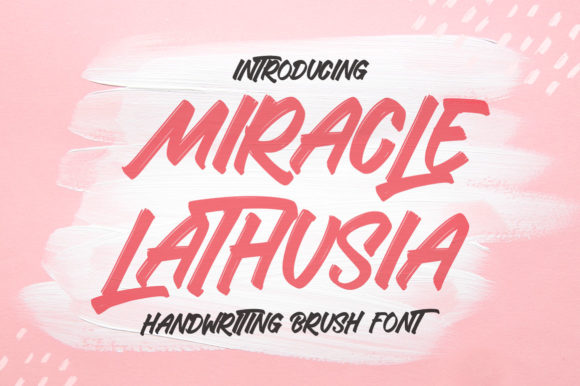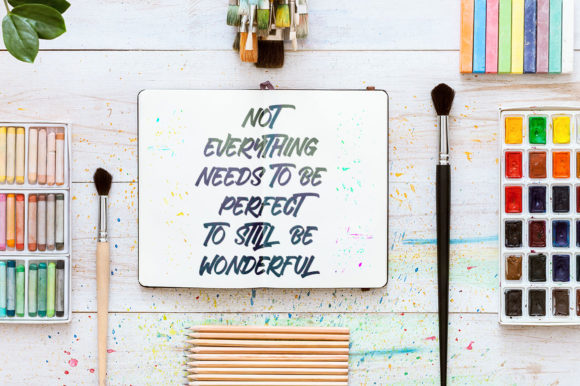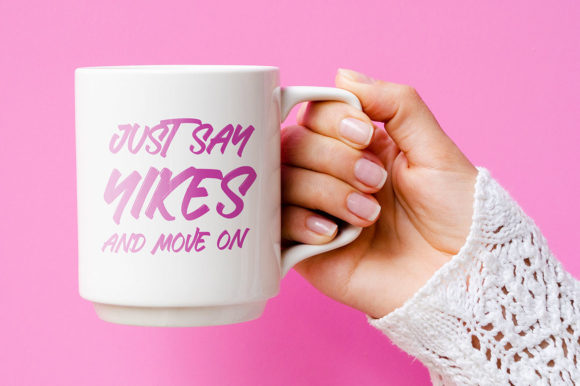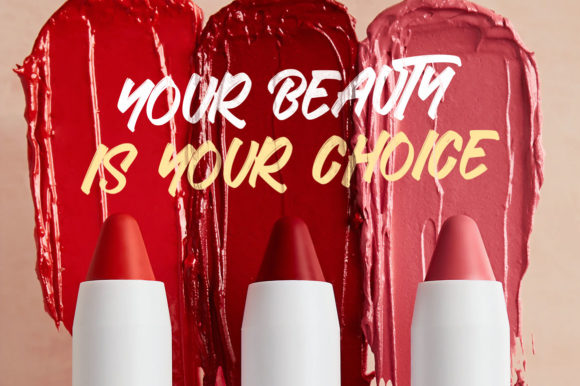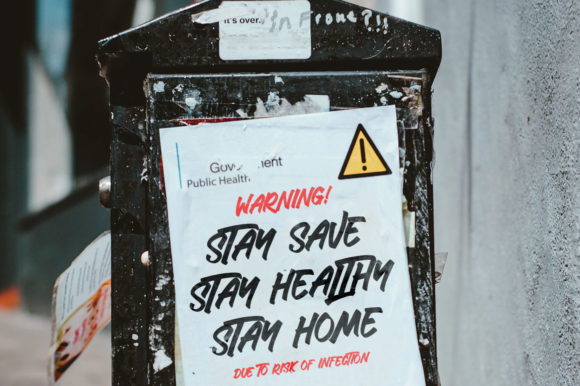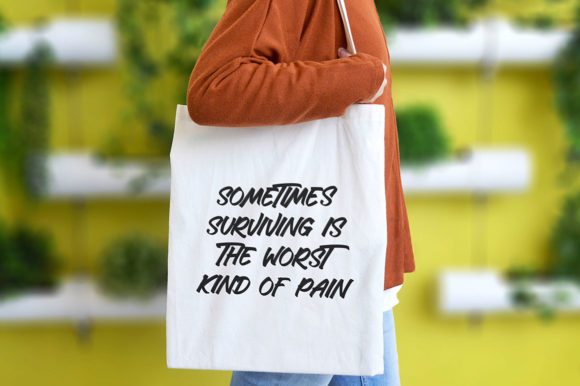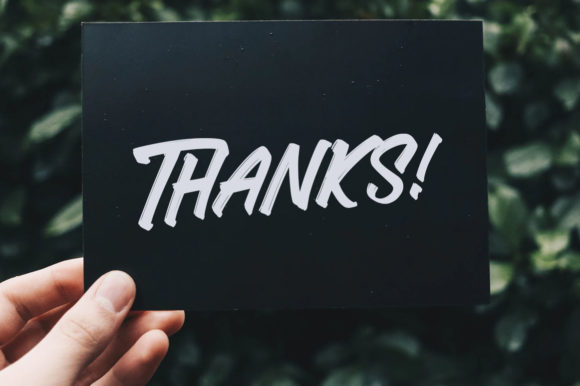
Miracle Lathusia Font
About Miracle Lathusia Font
Miracle Lathusia is a casual and fun handwritten font, created with a brush pen. It will elevate a wide range of design projects to the highest level, be it branding, headings, wedding designs, invitations, signatures, logos, labels, and much more!